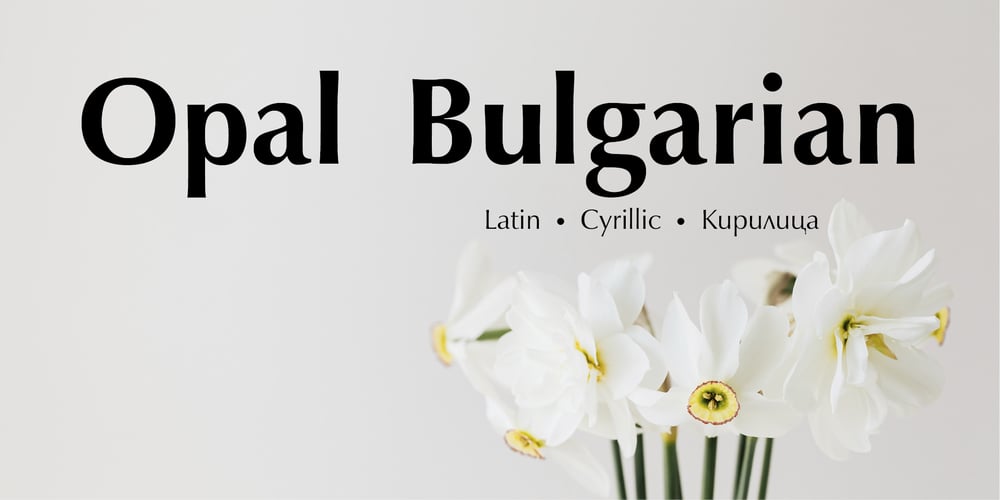
Opal Bulgarian
Opal Bulgarian font
Opal Bulgarian Font Family was designed by Zhivko Stankulov and published by Context Foundry. Opal Bulgarian contains 4 styles and family package options. Opal Bulgarian is a humanistic sans serif typeface of a modern type, inspired by the famous Optima typeface (designed by Hermann Zapf). Opal Bulgarian consists of 2 weights and corresponding italics. Opal Bulgarian is suitable for body texts; for titles; for corporate identity.Opal Bulgarian continues the design of Opal BulgarianCYR, designed in 1992 by Zhivko Stankulov. In compare to Opal BulgarianCYR the new font family Opal Bulgarian has more glyphs and cover more languages. A number of shortcomings in the construction of the glyphs have been eliminated, and the design as a whole has been updated.Opal Bulgarian is available with active support and upgradeability. Licensees will receive all new versions of the font free of charge.